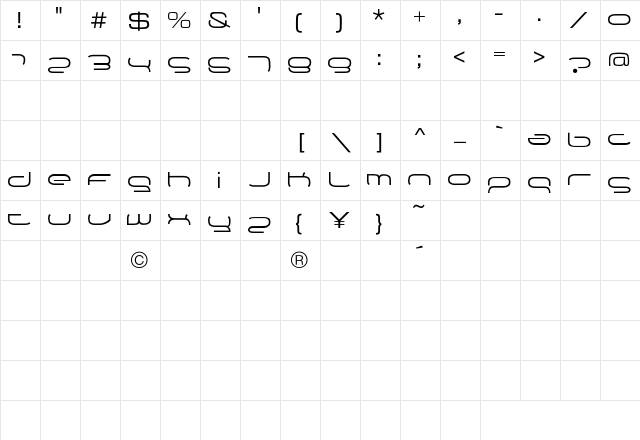
Metamorfoze reguler
Style: reguler
Design Context for Metamorfoze
Metamorfoze is a composed and adaptable typeface that performs quietly and consistently across a wide range of design contexts.